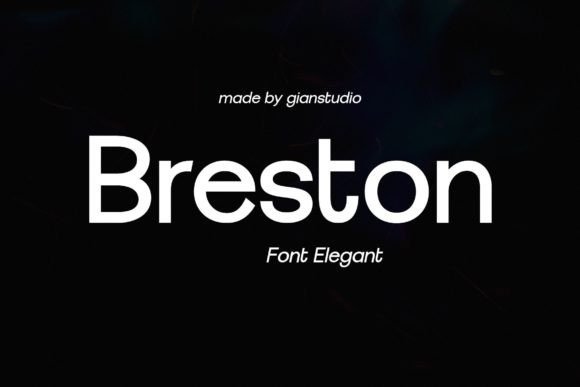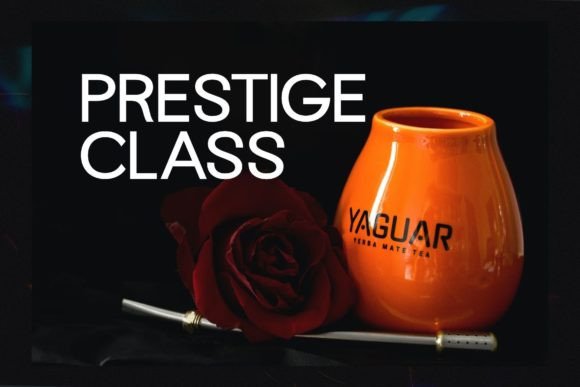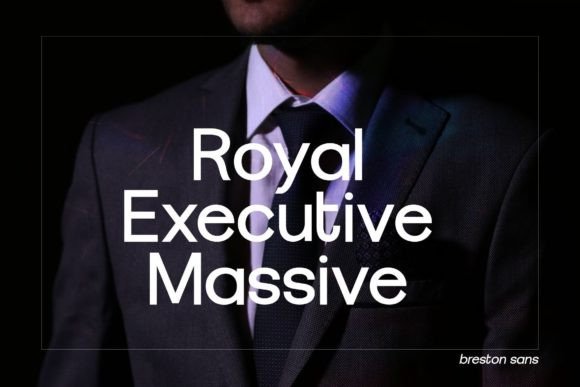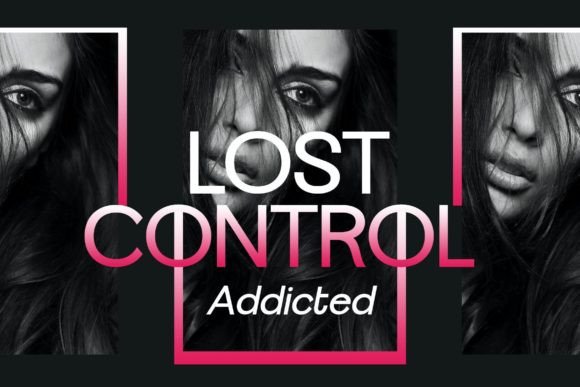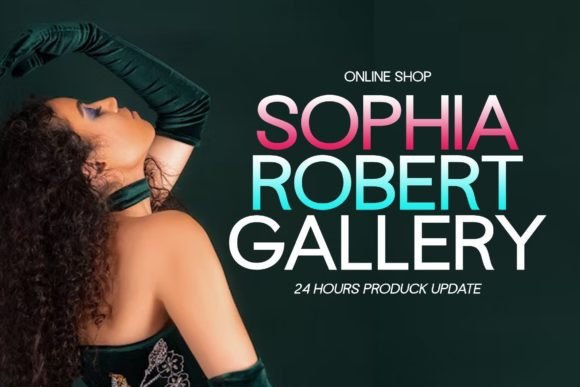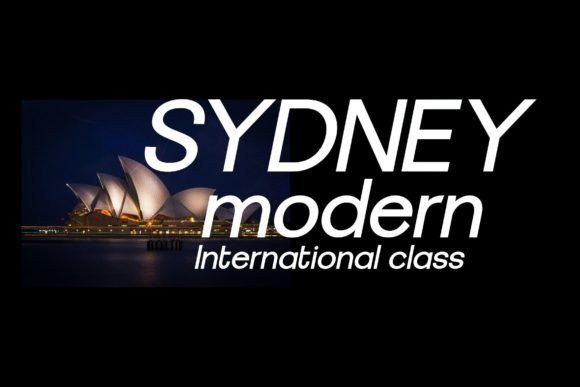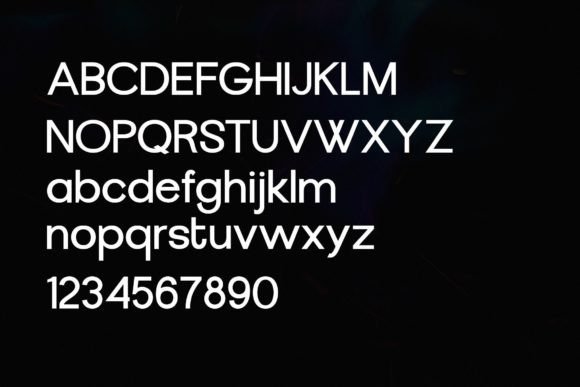
Unleash Your Creative Side with the Luxurious Breston Font
As a designer, you know that finding the perfect font can make or break a project. It’s that moment of inspiration, when you finally stumble upon a typeface that speaks to your vision, that makes all the difference. For me, it was the day I discovered the Breston Font – a stunning sans serif font that embodies the essence of luxury and elegance.
Breston Font is more than just a font – it’s a tool that can elevate your designs and leave a lasting impression. Carefully crafted to evoke the sophistication of high-end fashion, this font is perfect for fashion brands, resorts, cosmetics, and any other industry that demands a touch of glamour. As a designer, you’ll appreciate the versatility and value that Breston Font brings to your projects.
Breston Font Key Features
- Font Family: Breston Font
- Unique Characteristics: Breston Font is a modern sans-serif typeface designed for digital use, featuring a clean and minimalist aesthetic with subtle rounded edges and a friendly feel.
- Font Weight: Multiple weights available, including Light, Regular, Bold, and Black
Breston Font Review
Overall, I’d say Breston Font is a decent choice for body text, especially for digital interfaces. Here are some aspects that I found particularly effective: ✨
- It’s highly legible, making it perfect for large blocks of text.
- The font’s sans-serif design keeps it clean and modern-looking.
- It’s available in a variety of weights, from light to bold, giving you plenty of options for styling.
However, I did encounter some limitations that might make it less suitable for certain projects: ⚠️
- The font might not be the best choice for titles or headings, as it can look a bit too plain.
- It’s not particularly suitable for print materials, as it can appear too thin on paper.
- The font family is not as extensive as some other popular fonts, which might limit your design options.
Overall, I’d give Breston Font 3.5 out of 5 stars. It’s a solid choice for body text, but it may not be the best fit for every project. With some careful styling and selection, it can be a great addition to your design arsenal.
Tips for Getting the Most Out of the Breston Font
Use the Breston Font for titles and headings to create a bold and eye-catching visual impact.
Pair the Breston Font with other fonts to create a unique and stylish typography combination.
Experiment with different font sizes and colors to emphasize key points and create visual hierarchy.
The Breston Font is ideal for:
Branding and logo design.
Business cards and marketing materials.
Website and app design.
Presentations and reports.
Alternatives to Breston Font
Lato is a sans-serif font designed by Łukasz Dziedzic. It is a modern, clean font suitable for digital products and websites. Lato is often used in corporate and tech-related designs.
Lato is a more versatile and modern alternative to Breston Font, with a larger character set and better support for various languages. While Breston Font has a unique, distressed look, Lato is more neutral and legible.
Montserrat is a sans-serif font designed by Julieta Ulanovsky. It is a geometric font inspired by urban typography, often used in modern and trendy designs.
Montserrat is a more geometric and condensed alternative to Breston Font, with a stronger emphasis on structure and grid-based design. While Breston Font has a more relaxed, hand-drawn feel, Montserrat is more precise and modern.
Open Sans is a sans-serif font designed by Steve Matteson. It is a clean, modern font suitable for digital products and websites.
Open Sans is a more neutral and legible alternative to Breston Font, with a larger character set and better support for various languages. While Breston Font has a unique, distressed look, Open Sans is more straightforward and easy to read.
What is the recommended font size and line height for optimal readability with the Breston Font?
For optimal readability, we recommend using a font size between 12 and 18 points, with a line height of at least 1.2 times the font size. This will provide a comfortable reading experience for most users.